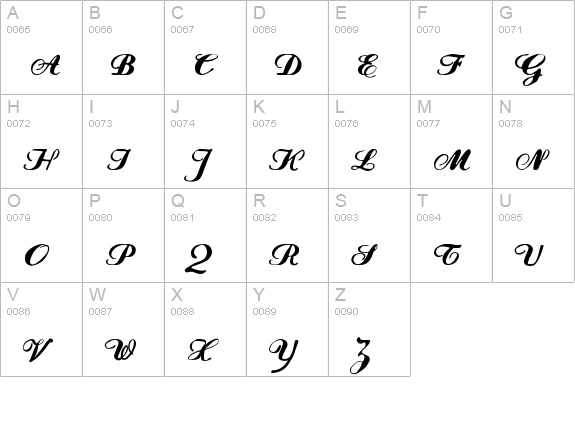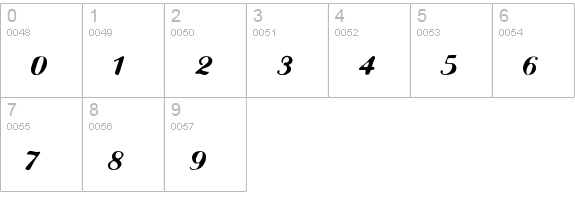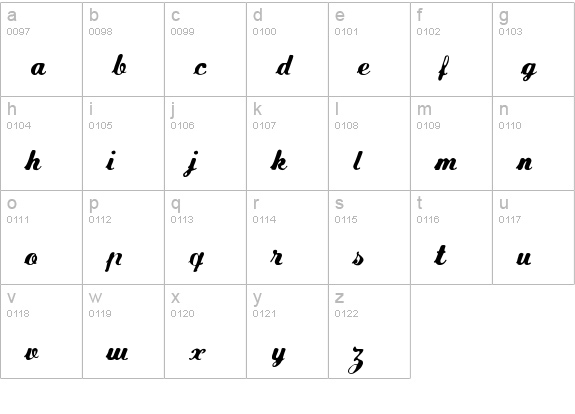
FLW Script Font Details
FLW Script font is a stunning and elegant script typeface that exudes sophistication and style. Its graceful strokes and fluid curves make it perfect for adding a touch of class to any design project. This font is ideal for wedding invitations, branding materials, logos, and more. What sets FLW Script font apart is that it is not only beautiful but also free to use. Yes, you read that right - this exquisite font is available for download at FontsMarket.com at absolutely no cost. So, whether you're a professional designer looking to elevate your work or a hobbyist seeking a stylish font for a personal project, FLW Script font is the perfect choice. Download it now and enhance your designs with its timeless beauty.